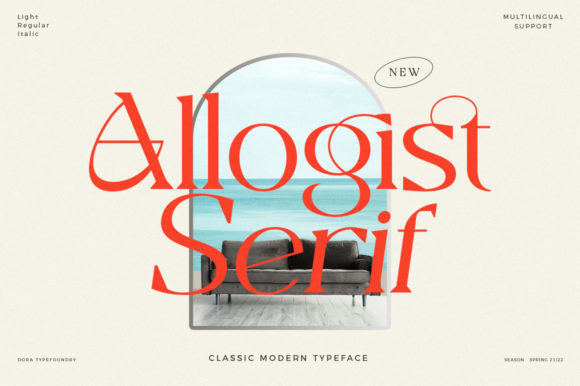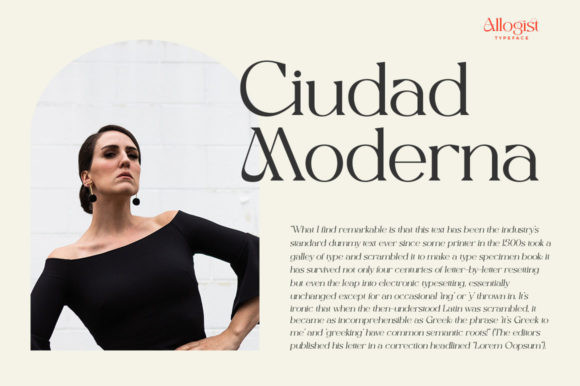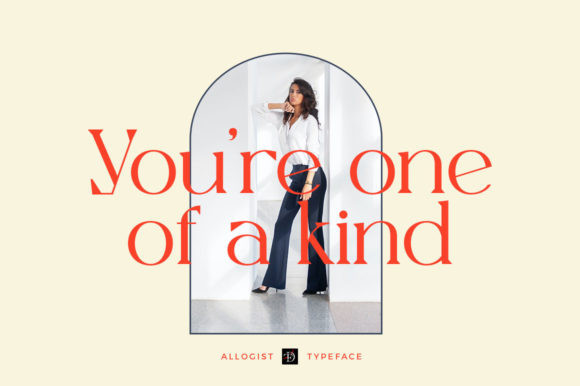
Allogist Font
Allogist FontAllogist is a superb serif font. Use it for any design projects that require a charming appearance!
This font is PUA encoded which means you can access all of the glyphs and swashes with ease!